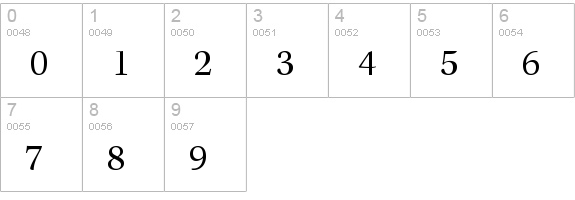
Kepler Std is a versatile and elegant font that brings a touch of sophistication to any design project. With its clean lines and balanced proportions, this font is perfect for both print and digital applications. Its timeless design makes it suitable for a wide range of uses, from branding and advertising to editorial and web design. One of the best things about Kepler Std is that it is available for free download at FontsMarket.com. This means that designers and creatives can easily access and use this font without any cost. Whether you are a professional designer or a hobbyist, this free font provides you with the opportunity to enhance your projects with a high-quality typeface. The beauty of Kepler Std lies in its attention to detail. Each letter has been meticulously crafted to ensure optimal legibility and aesthetic appeal. The font's versatility is evident in its extensive character set, which includes a variety of weights and styles. This allows designers to create unique and impactful typography that captures attention and communicates effectively. Whether you are designing a logo, a website, or a magazine layout, Kepler Std can be the perfect choice to add a touch of sophistication and professionalism. Its clean and modern appearance lends itself well to both contemporary and classic designs, making it a timeless option that will never go out of style. In addition to being visually appealing, Kepler Std is also highly functional. Its well-designed letterforms ensure excellent readability at any size, making it suitable for both headlines and body text. This font also has great compatibility with various software applications, ensuring seamless integration into your design workflow. With Kepler Std, you don't have to compromise on quality or budget. This free font offers a premium experience without the premium price tag. Download it today from FontsMarket.com and unlock the potential to create stunning designs that leave a lasting impression.